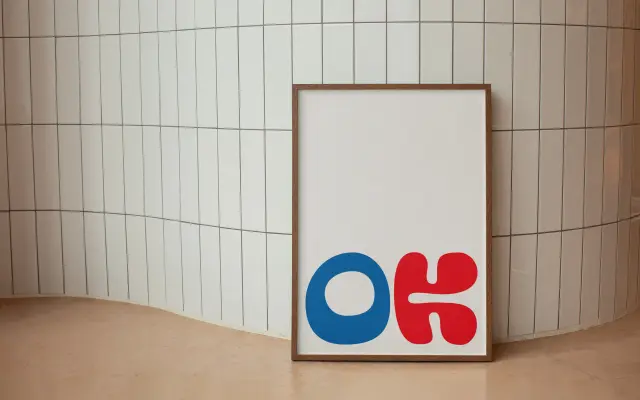
Brinca Variable Font
A full-spectrum variable font shifting between sharp angular forms and rounded bouncy letters, designed for expressive brand and packaging work.
Designed by Alexander Wright, Rodrigo Fuenzalida and Michu Benaim Steiner, Brinca spans three distinct moods along a single variable axis: tight angular pleats, a neutral upright sans and inflated bouncy letterforms. Available as a single variable .ttf or five static OpenType files, it covers uppercase and lowercase Latin alphabets, numerals, punctuation and diacritics including Ñ. The wide stylistic range makes it a practical tool for brand systems, book covers, packaging and event promotions where visual variety is needed within a single typeface.
A variable display typeface spanning from sharp compressed forms to bouncy rounded letters; its expressive, non-text-setting nature and extreme stylistic range place it firmly in display territory.